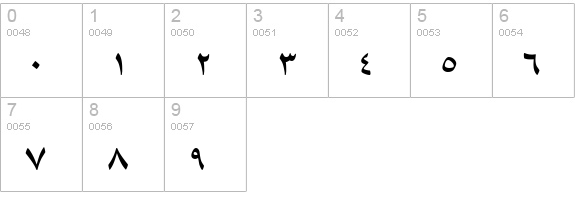
B Davat Font Details
B Davat font is a stunning display typeface that exudes elegance and sophistication. With its unique blend of modern and classic elements, this font is perfect for adding a touch of luxury to your design projects. The intricate details and graceful lines of B Davat font make it a versatile choice for a wide range of applications, from branding to editorial design. What sets B Davat font apart is not only its exquisite design but also the fact that it is available for free download at FontsMarket.com. This means that you can easily access this beautiful typeface and incorporate it into your creative work without any cost. Whether you're working on a personal project or a professional assignment, B Davat font is sure to elevate your designs and make a lasting impression. Download it now and let your creativity soar with this exceptional font.